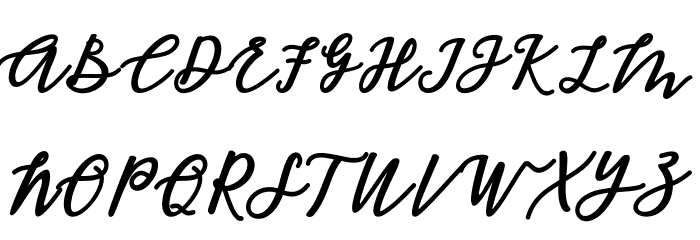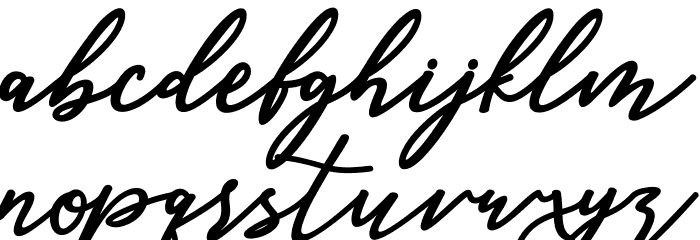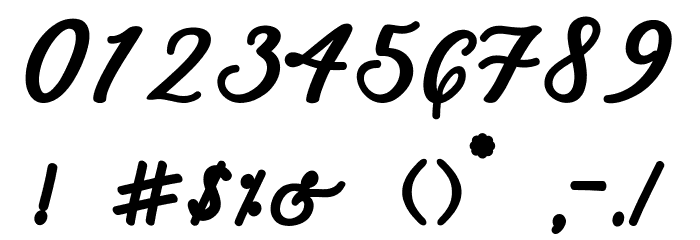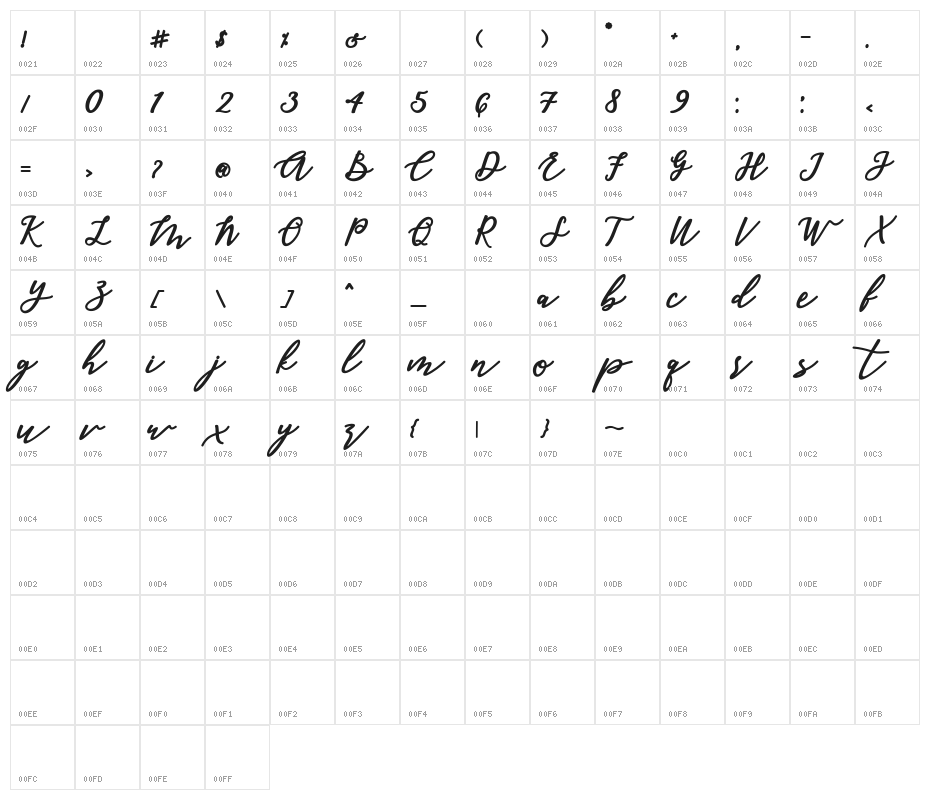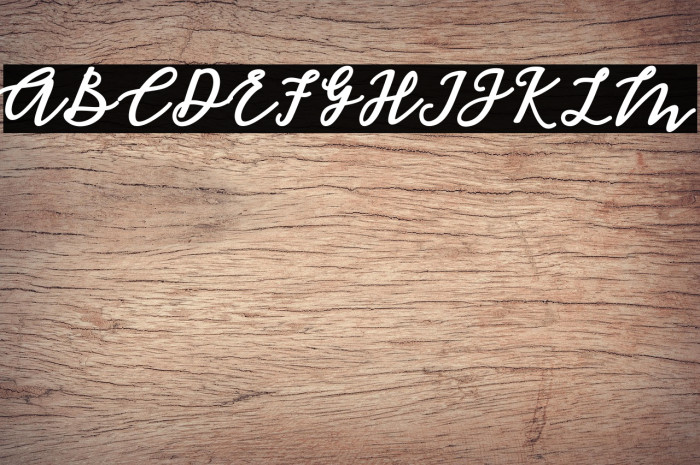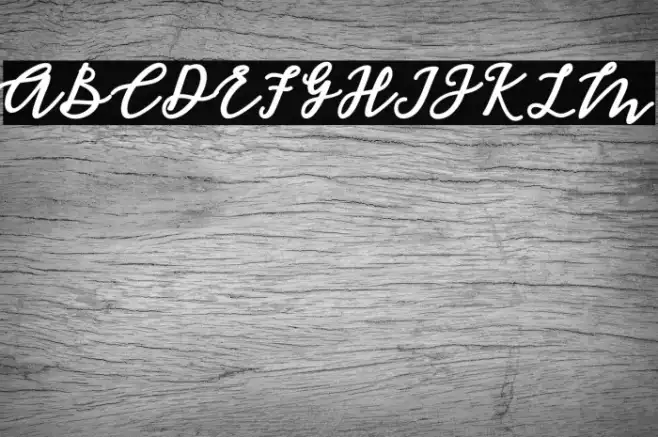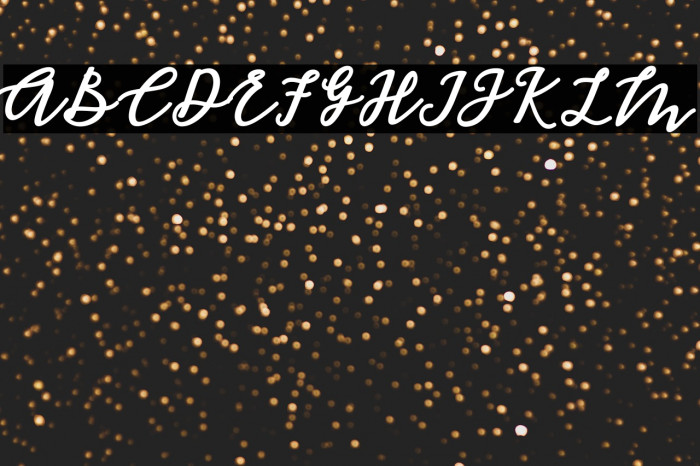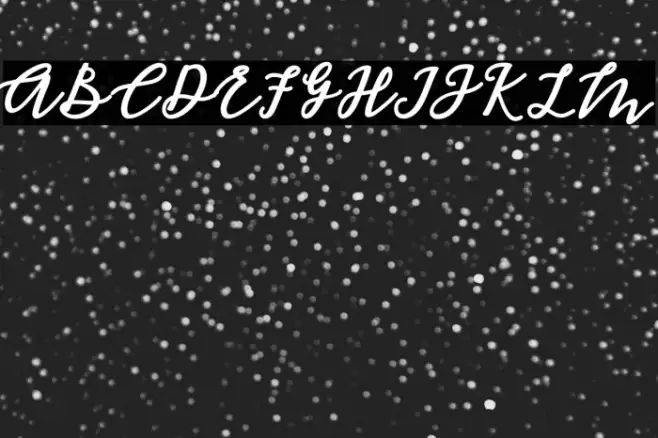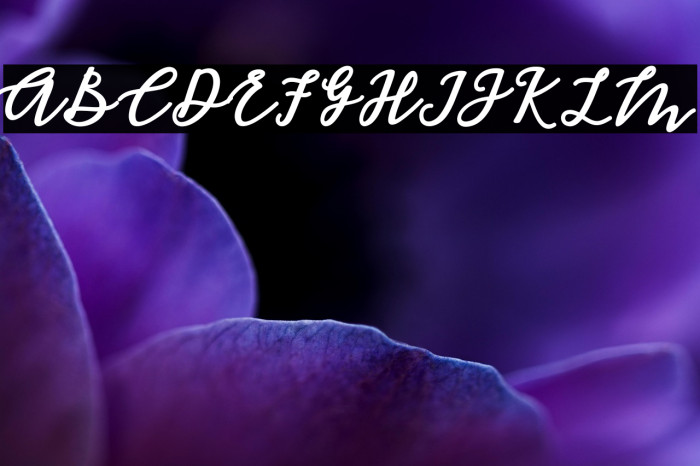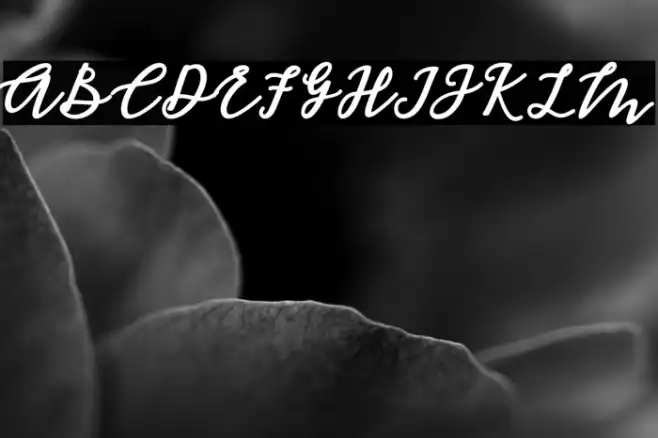
malika Font
This font features a flowing, cursive style with elegant, connected letters that mimic the fluidity of handwriting. The uppercase letters are bold and expressive, while the lowercase letters maintain a consistent rhythm and smoothness. The numerals are rounded and maintain the same cursive style, adding a cohesive look to the overall design. Special characters are creatively integrated, maintaining the script's aesthetic. This font exudes a sense of elegance and sophistication, making it ideal for projects that require a personal touch.
A bold, cursive script font with elegant, flowing characters.
- Font: malika
- Proposed Projects: Ideal for wedding invitations, greeting cards, branding, and logo design where a personal, elegant touch is desired.
- Category: Script
- Overall Style: Elegant, Handwritten
- Use Case: Logos, Invitations, Decorative Text